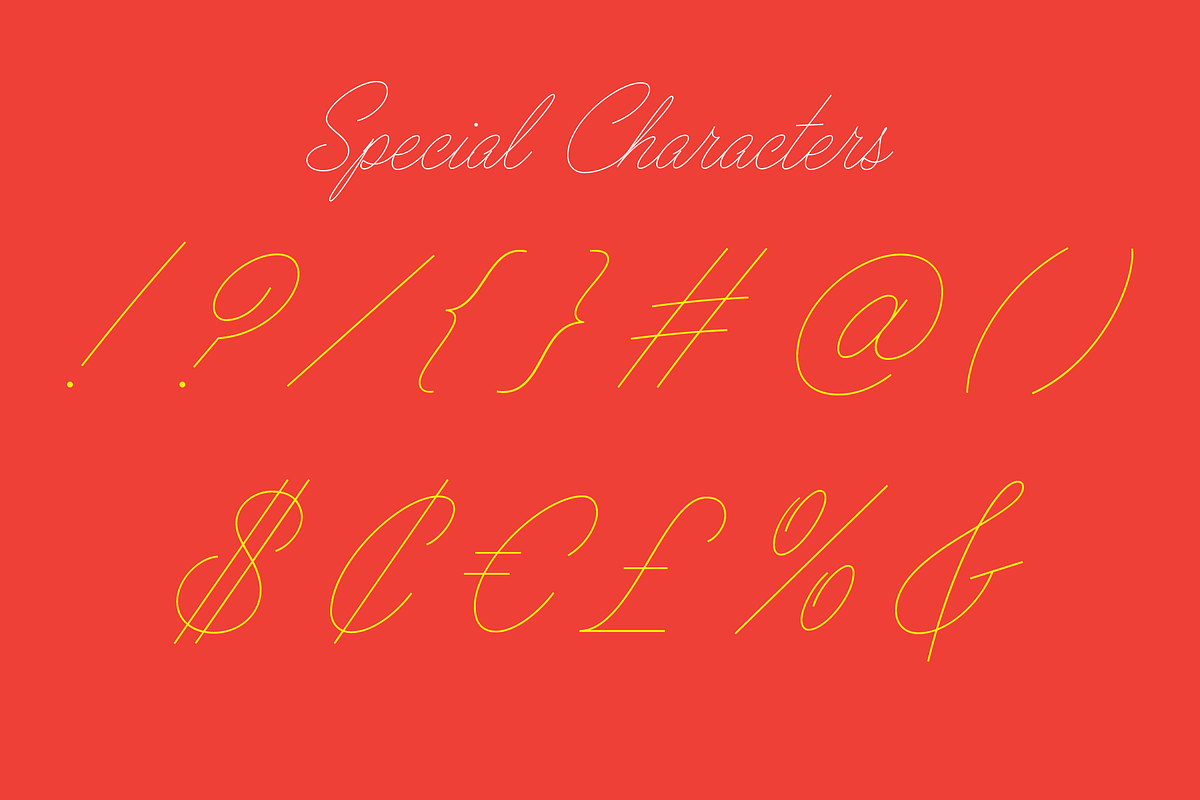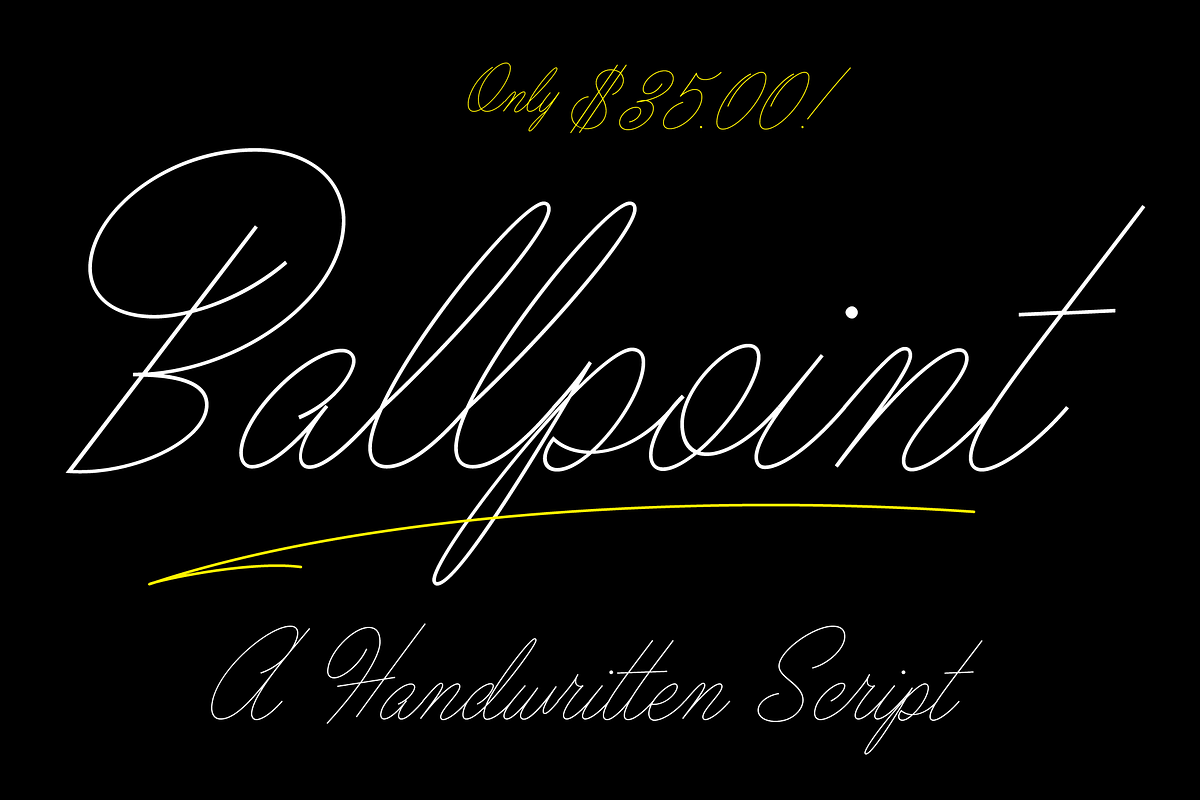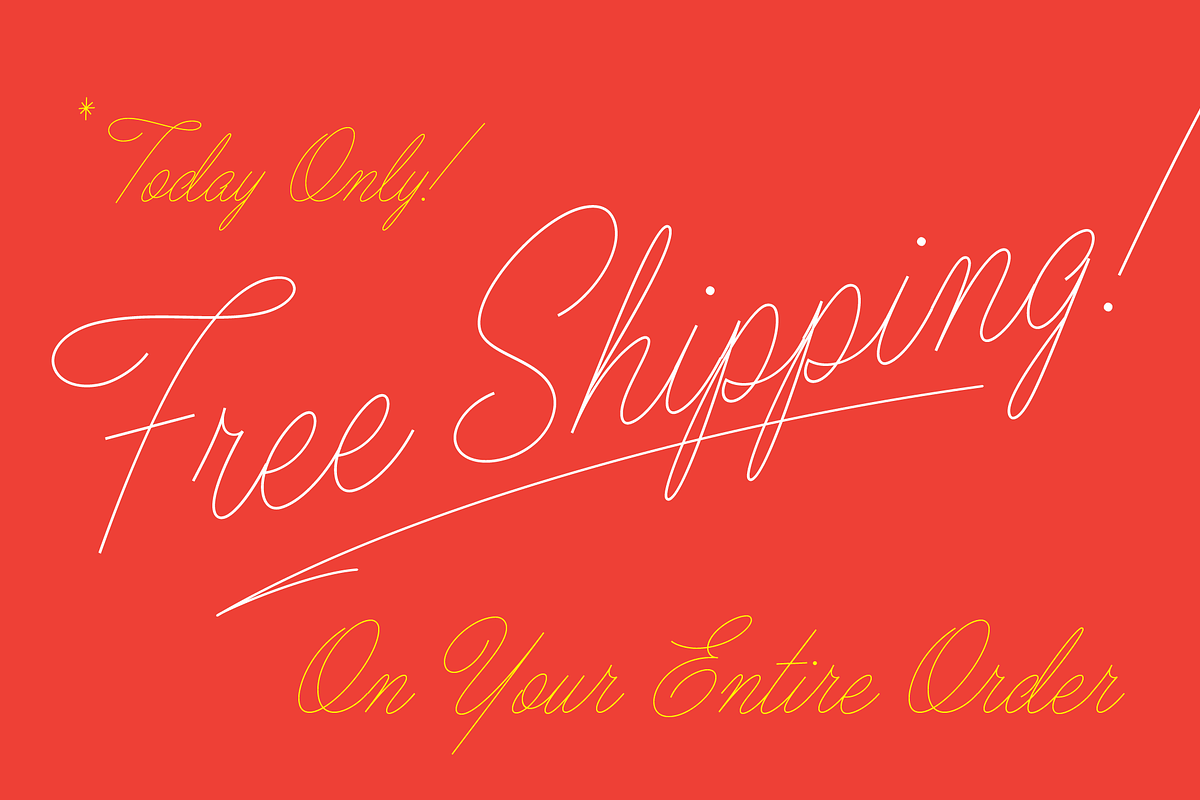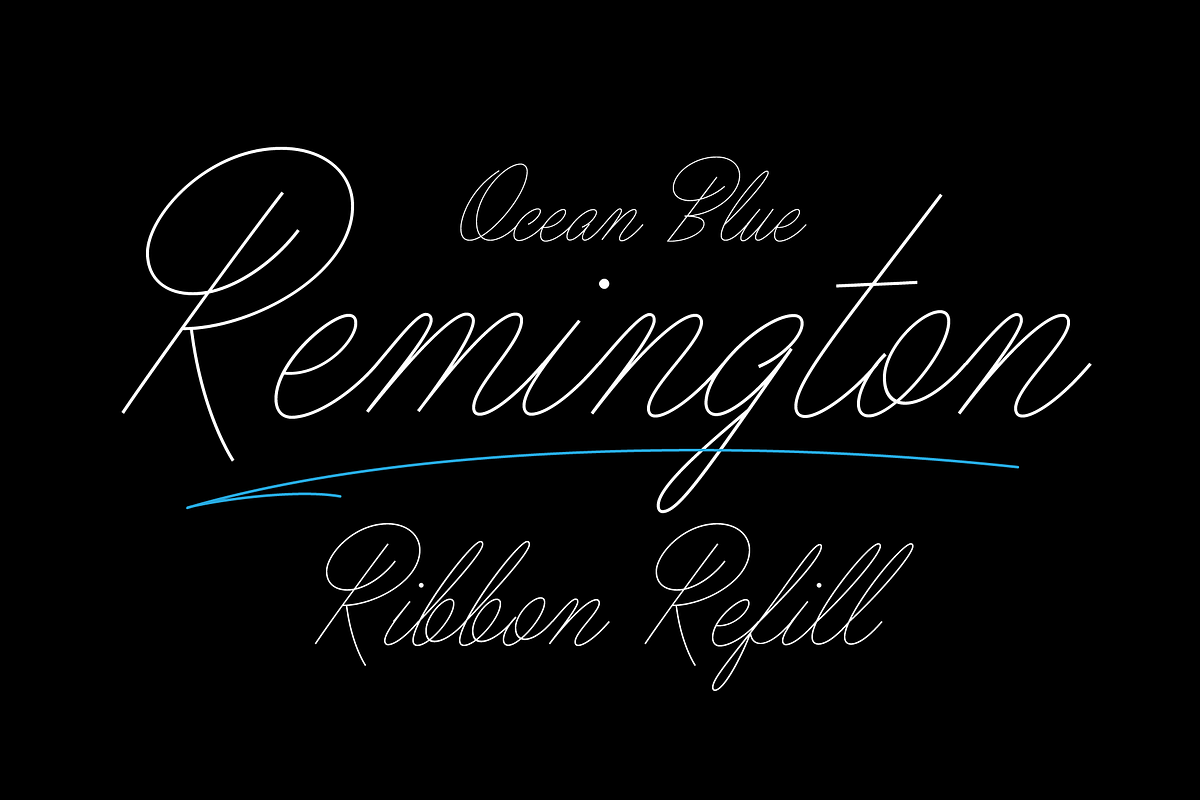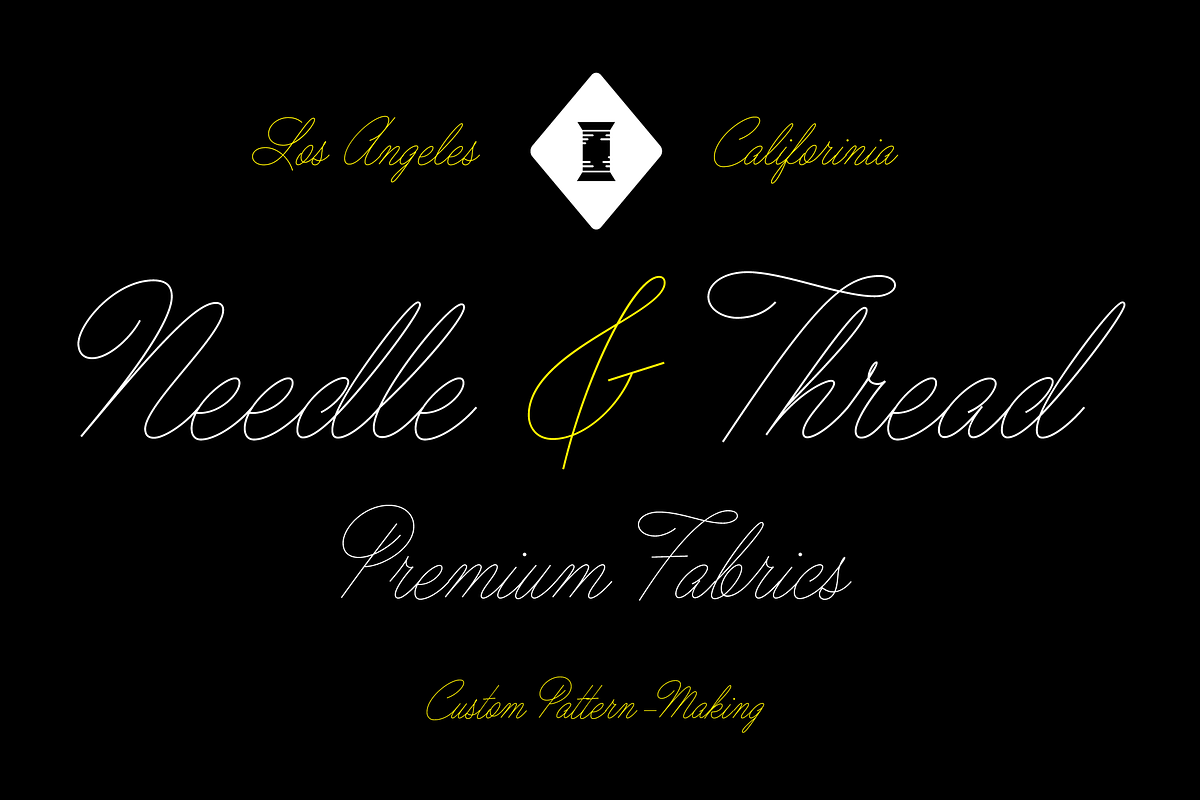
Ballpoint Script
Ballpoint script is all about adding a personal touch. I've always dreamed of designing a font that feels like friendly a note written with a BIC ballpoint pen. Ballpoint's smooth, single-weight lines and charming variations provide the ideal balance of humanity and clarity. This font is especially well suited for branding and marketing campaigns where personality and friendliness is a requirement.